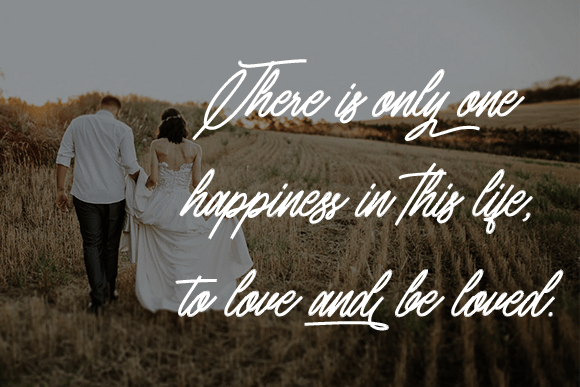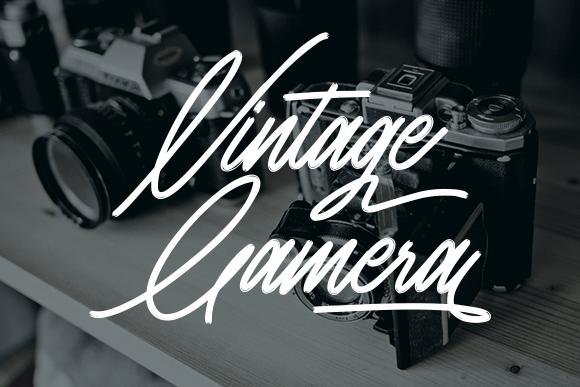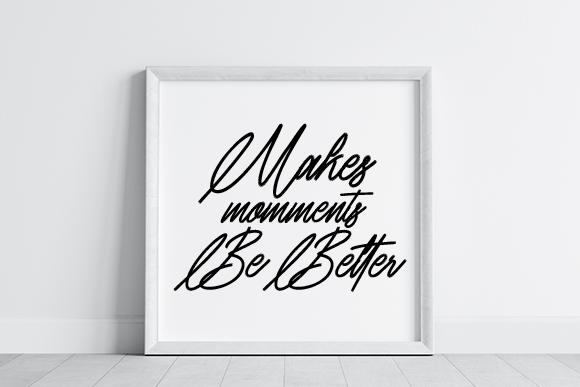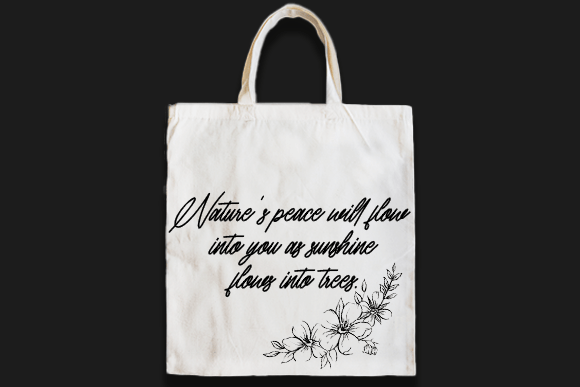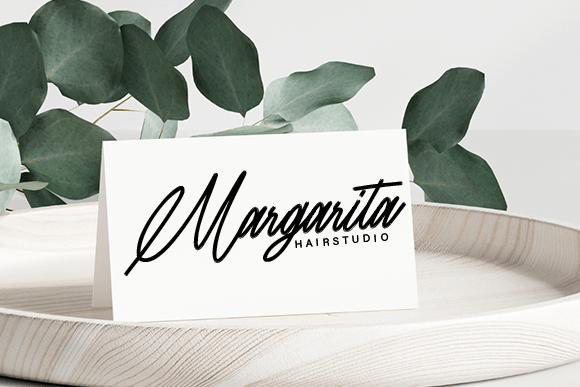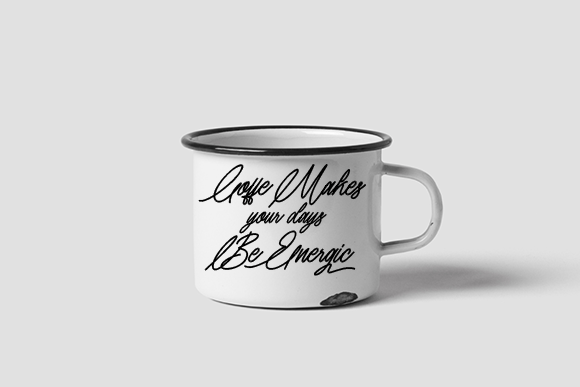
Atharwa Font: Elevate Your Designs with a Sleek Monoline Brush Font
Are you tired of using the same old fonts for your creative projects? Look no further than Atharwa, a stunning monoline brush font that’s perfect for designers and crafters looking to add a touch of modern sophistication to their work. In this article, we’ll dive into the world of Atharwa and explore how this versatile font can elevate your branding, logos, advertisements, social media content, and more.
What is Atharwa Font?
Atharwa is a beautifully crafted monoline brush font that’s designed to bring a sense of elegance and refinement to your designs. With its sleek lines and modern aesthetic, Atharwa is perfect for creative ventures that require a touch of sophistication. Whether you’re working on a logo, advertisement, or social media post, Atharwa’s unique style is sure to make your project stand out from the crowd.
The Benefits of Using Atharwa Font
So, what makes Atharwa font so special? Here are just a few benefits of using this amazing font in your designs:
- Versatility: Atharwa is a highly versatile font that can be used for a wide range of creative projects, from branding and logos to advertisements and social media content.
- Modern Aesthetic: Atharwa’s sleek, monoline design gives your projects a modern and sophisticated look that’s sure to impress.
- Elegance: With its refined lines and elegant style, Atharwa adds a touch of class to any design.
- Easy to Read: Despite its sleek design, Atharwa is incredibly easy to read, making it perfect for body text and headlines.
How to Use Atharwa Font in Your Designs
Using Atharwa font in your designs is incredibly easy. Here are a few tips to get you started:
- Branding: Use Atharwa as a primary font for your brand identity, including logos, business cards, and letterheads.
- Logos: Create stunning logos with Atharwa’s sleek lines and modern aesthetic.
- Advertisements: Use Atharwa to add a touch of sophistication to your advertisements, including print ads, social media ads, and billboards.
- Social Media: Elevate your social media content with Atharwa’s modern style, perfect for Instagram captions, Facebook posts, and Twitter bios.
Unlock Your Creative Potential with Atharwa
With Atharwa font, the possibilities are endless. Whether you’re a designer, crafter, or entrepreneur, Atharwa has the power to transform and elevate your projects to new heights. Here are just a few ways you can unlock your creative potential with Atharwa:
- Experiment with Different Styles: Try out different font styles, sizes, and colors to create unique and eye-catching designs.
- Mix and Match with Other Fonts: Combine Atharwa with other fonts to create stunning typography and add visual interest to your designs.
- Use Atharwa for Multilingual Projects: With its clear and elegant design, Atharwa is perfect for multilingual projects, including translations and international branding.
In conclusion, Atharwa font is a game-changer for designers and crafters looking to add a touch of modern sophistication to their work. With its sleek lines, elegant style, and versatility, Atharwa is perfect for a wide range of creative projects. Whether you’re working on a branding campaign, logo design, advertisement, or social media content, Atharwa has the power to elevate your designs and unlock your creative potential. So why wait? Dive into the world of sleek design with Atharwa and discover a new favorite monoline brush font today!